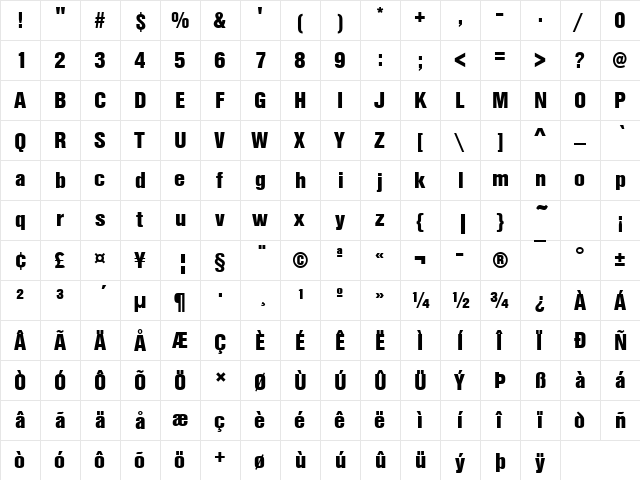
Nimbus Sans Becker TBlaCon Regular Font Preview
Nimbus Sans Becker TBlaCon Regular
Design Context for Nimbus Sans Becker TBlaCon Typeface
Nimbus Sans Becker TBlaCon is a composed and adaptable typeface that performs quietly and consistently across a wide range of design contexts.